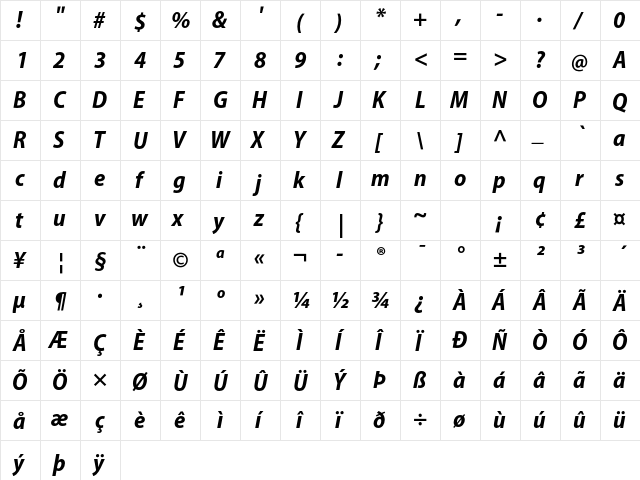
Myriad Pro Bold SemiCondensed Italic Font Preview
| Designer | Robert Slimbach and Carol Twombly with Fred Brady and Christopher Slye |
Design Context for Myriad Pro Typeface
Myriad Pro takes a measured approach to typography — its balanced proportions and neutral character make it a reliable workhorse for both digital and print work. The slanted form adds forward momentum and visual energy. Its bold stroke weight gives it real presence on the page. Its narrow stance lets it pack a punch even in space-constrained designs.
Pro Tip: Try Myriad Pro for annotation and caption copy alongside an upright companion — the contrast in angle creates a dynamic but ordered typographic system.